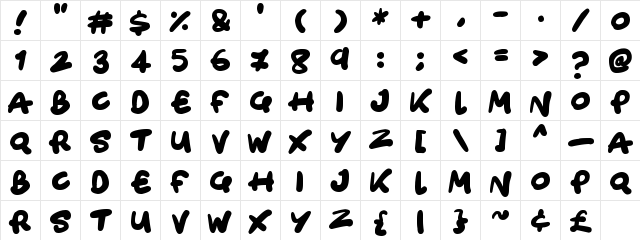
Only Organic Regular
Design Context for Only Organic Typeface
Only Organic is a composed and adaptable typeface that performs quietly and consistently across a wide range of design contexts.